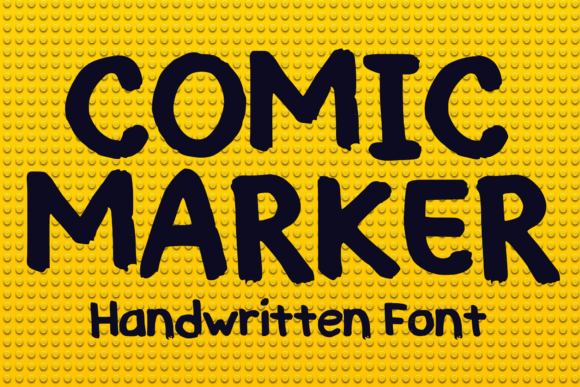
Journey into the Realm of Whimsy with Comic Marker Font: Ignite Your Imagination and Bring Joy to Your Designs!
In the realm of typography, where letters dance and stories unfold, there exists a captivating script font named Comic Marker. Its playful charm and enchanting strokes are sure to spark your imagination, inviting you to create captivating designs that will leave an indelible mark on your audience.
Step into a world of endless possibilities, where Comic Marker's expressive strokes and vibrant energy will transform your creative visions into tangible masterpieces. Whether you're a seasoned designer seeking a touch of whimsy or a budding artist exploring new horizons, this remarkable font will elevate your work to new heights.
With Comic Marker as your creative companion, you'll discover a myriad of opportunities to bring joy and enchantment to your designs. Create playful stickers that evoke childhood memories, design t-shirts that radiate personality, or craft stunning logos that exude a unique charm. Unleash your creativity and let Comic Marker guide you as you design captivating magazine and book covers that tell stories at a glance.
Imagine your designs taking on a life of their own as they transport you to a realm of comics and cartoons, where vibrant characters and captivating narratives come to life. Comic Marker's playful nature will add a touch of magic to your illustrations, making them leap off the page and capture the hearts of your audience.
Let Comic Marker be your muse as you embark on a creative journey filled with wonder and delight. Its playful spirit will ignite your imagination, inspiring you to create designs that resonate with audiences of all ages. Download Comic Marker today and unlock the boundless possibilities that await you in the realm of creativity!